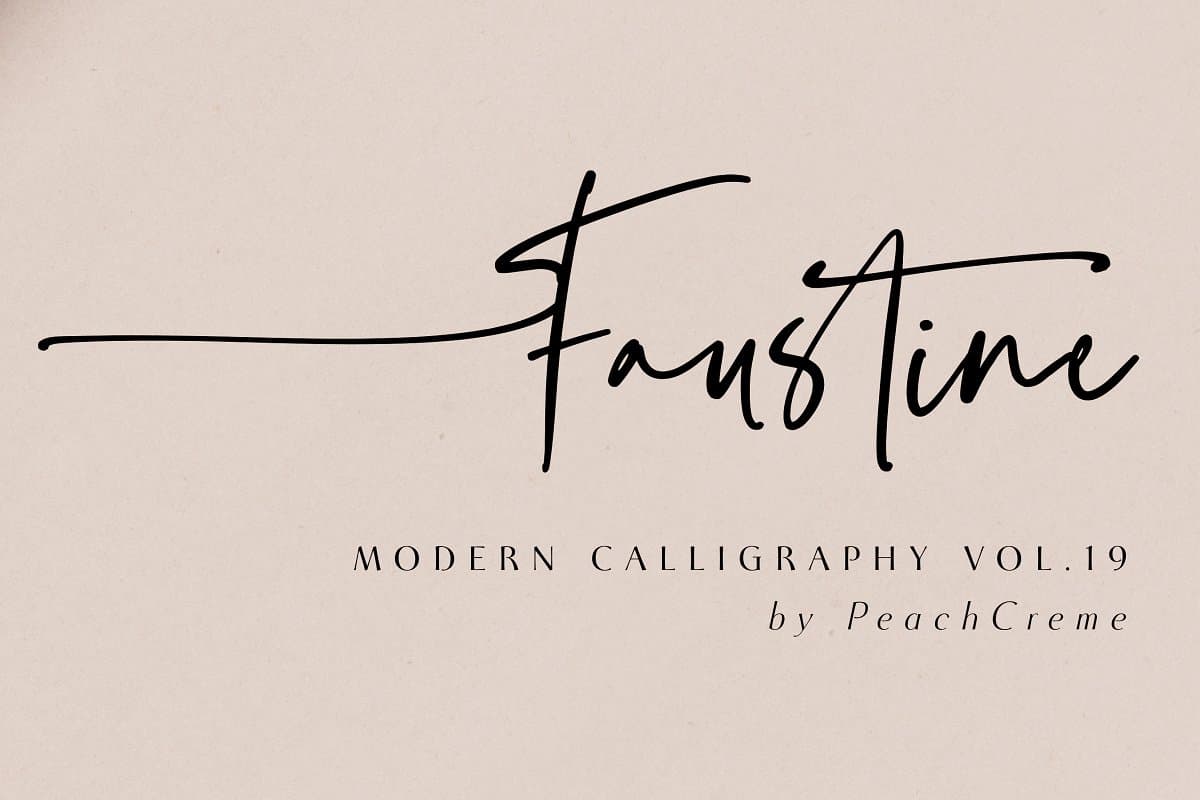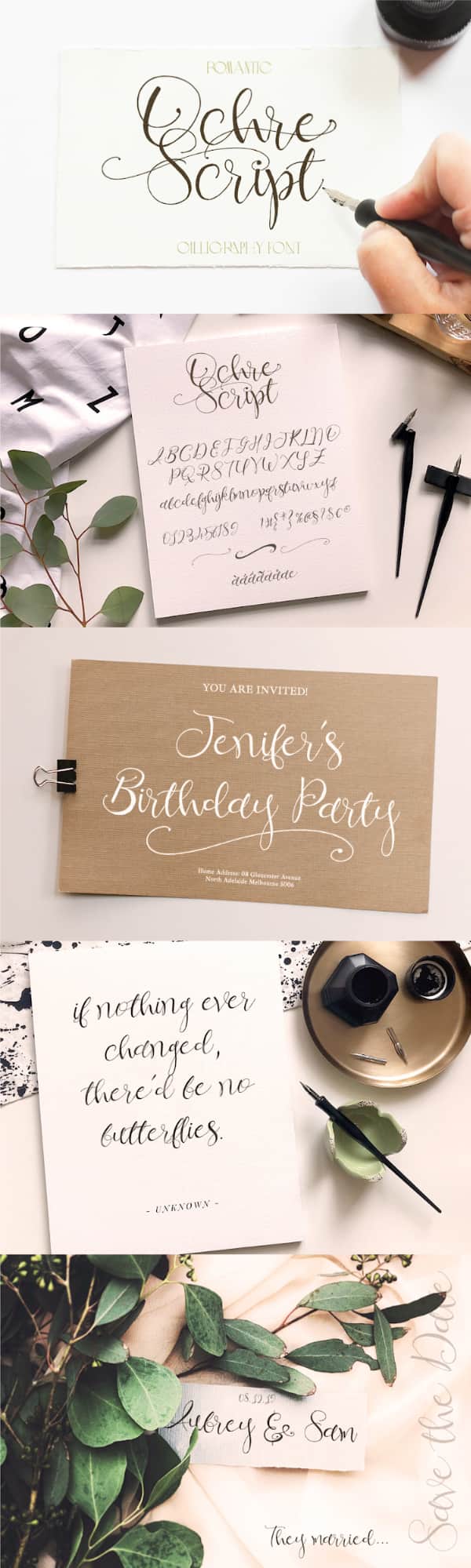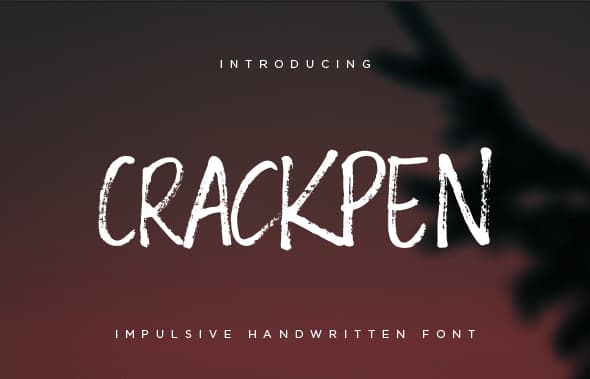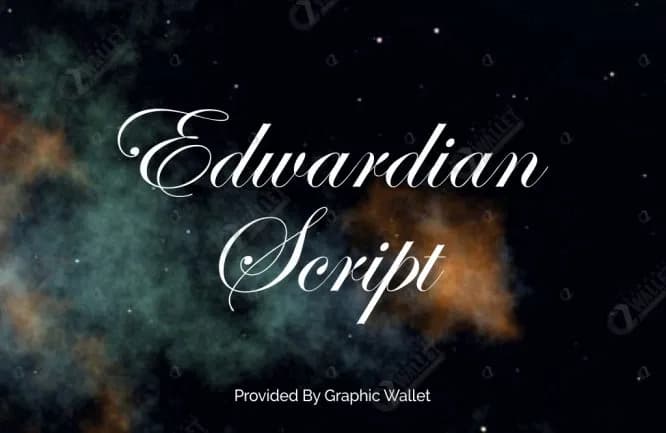
I think we can all agree that the font you choose can make or break a project.
Today, I want to dig into another font related topic—script fonts.
These types of fonts have an exponential impact on the harmony and overall feel of your designs. Therefore, selecting a cursive typeface requires extra attention.
In exchange, a thoughtfully chosen script font will capture attention and lead the eye like no other lettering style. You can also use it to fine-tune your design to convey the mood you want to go for with pinpoint accuracy.
Whether it’s a formal, professional design that needs a personal touch or a fun weekend project where you want your creative flair to shine, a well-selected script font can take your idea from zero to hero.
I’ve sifted through hundreds of the most popular script fonts—an excellent exercise to get inspired for your next design project.
But you might not have the luxury to spend hours searching for the best script font out there, so check out our shortlist of some of our favorite script fonts.
1. Southern Aire
Created by Måns Grebäck, Southern Aire is an authentic retro calligraphic typeface with a 50s nostalgia feel.
Due to its legibility, it’s perfectly functional for medium-length texts such as a quote or even a short description where you want to go for a handwriting effect.
However, these script letters are most impactful when they stand alone, such as when used in a logo. It works fine in print as well as display.
If you’re looking for something that delivers the cursive, natural qualities of a brush-type font but without the rough, unfinished feel, Southern Aire is worth taking a look at.
It also has multilingual support and a large number of special characters. Oh, and it’s free for personal use, so go ahead and give it a try.
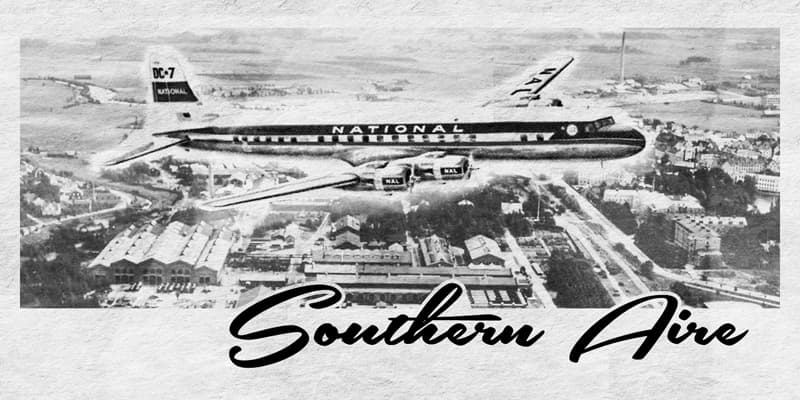
2. Milles
Looking for stylish free script fonts for a signature, a watermark for your photos, or a hip project that’s missing something?
Milles is a versatile free script font courtesy of Fortunes Co. that includes 151 unique ligatures as well as 45 alternates.
With its signature felt-tip texture and fluid lines, it’s such an expressive script writing font you can almost hear the creaking as the marker slides on a piece of paper.
It’s an ideal fit for wedding stationery, ads, packaging, and just about anything that shouts for artistic, confident handwriting to add that dash of authenticity.
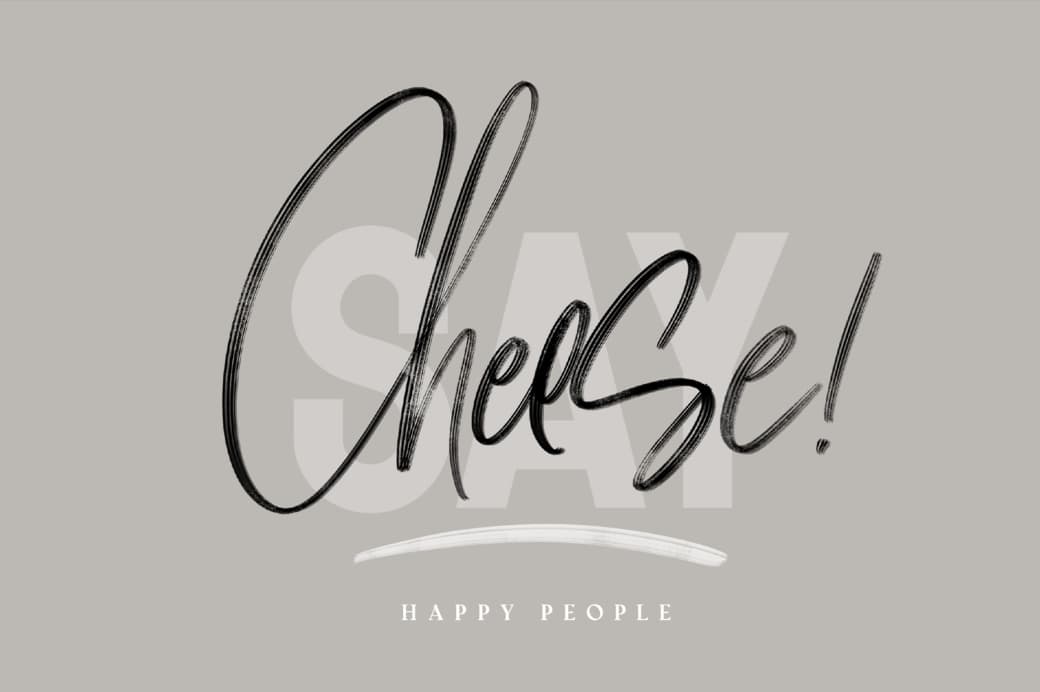
3. French Script
New typefaces hit the marketplaces every single day, but few stand the test of time.
French Script is one of the exceptions, having been with us for more than a century. It’s still running circles around some of the modern designs when it comes to usability, legibility, and, perhaps most importantly, character.
If you want to lend elegance to your work, always have the French Script font handy.
It may be too fancy for some designs, but if the concept allows an extra curve or two, French Script’s fabulous glyphs and swashes will make the message pop. The one-of-a-kind ligature design guarantees a fluid reading experience.
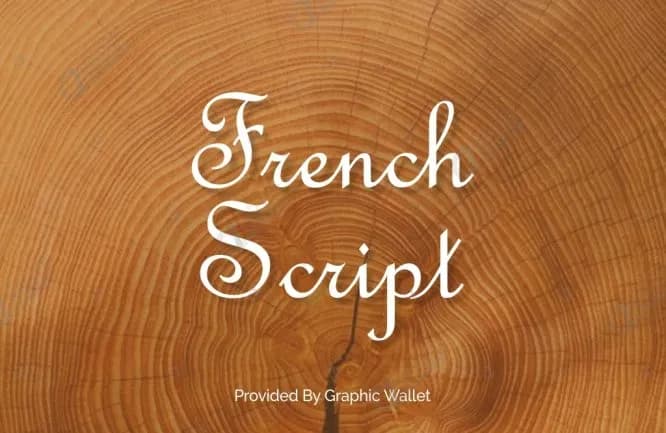
4. Fhoota Mhorgana
Here’s a font with such unique lines you can build an entire brand identity around it.
These beautiful hand stroke letters with 203 characters, 199 glyphs, and several ligatures are also ideal for clothing design, stationery, labels, and so much more.
This modern script font shines brightest when used as a standalone asset, such as a logo.
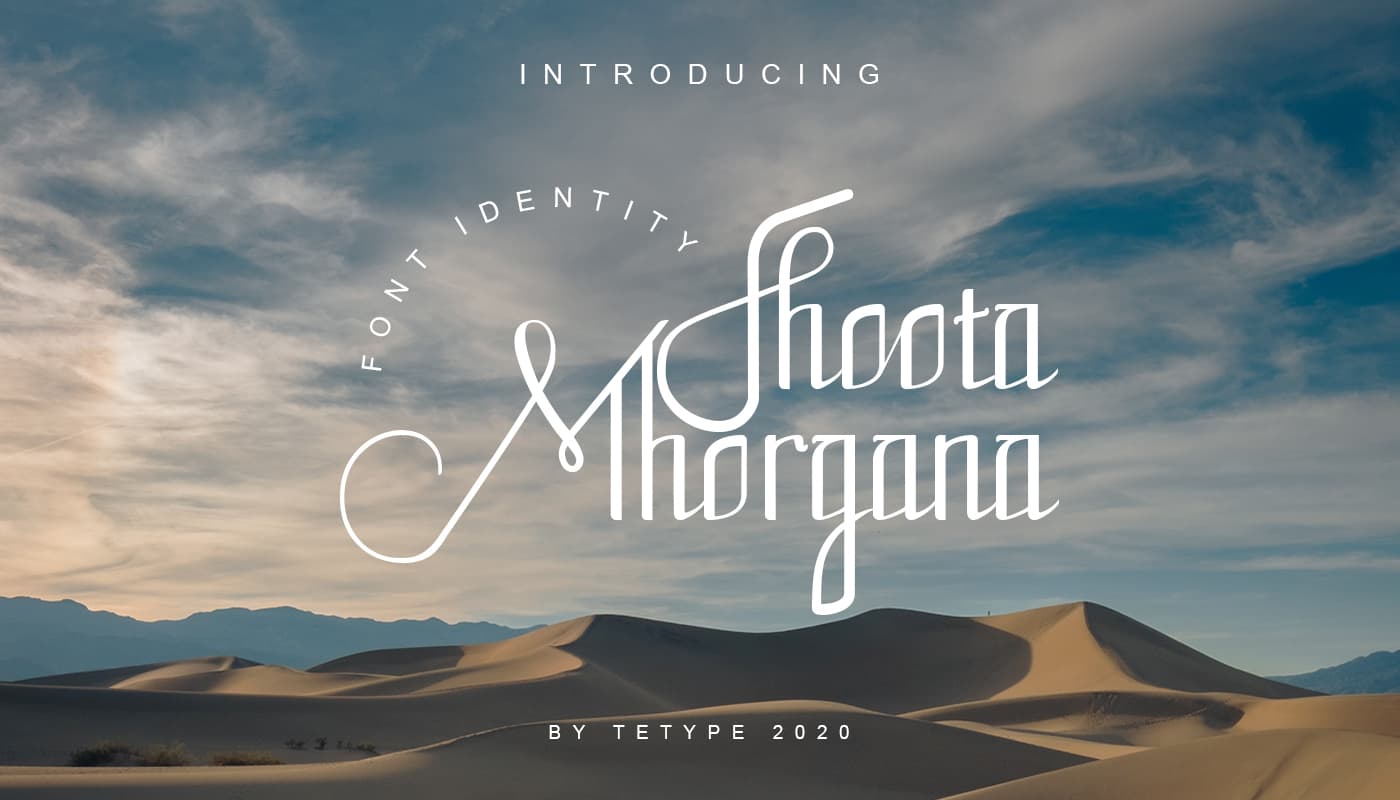
5. Sign Style
For literature-themed projects, plastic arts, or any other project where you want the design to radiate confidence and an artistic spirit, you can’t go wrong with Sign Style.
This font is characterized by contemporary lines and sophisticated accents.
Sign Style is ideal for signatures, logos, quotes, and whenever you want that distinctive fountain pen handwriting feel.
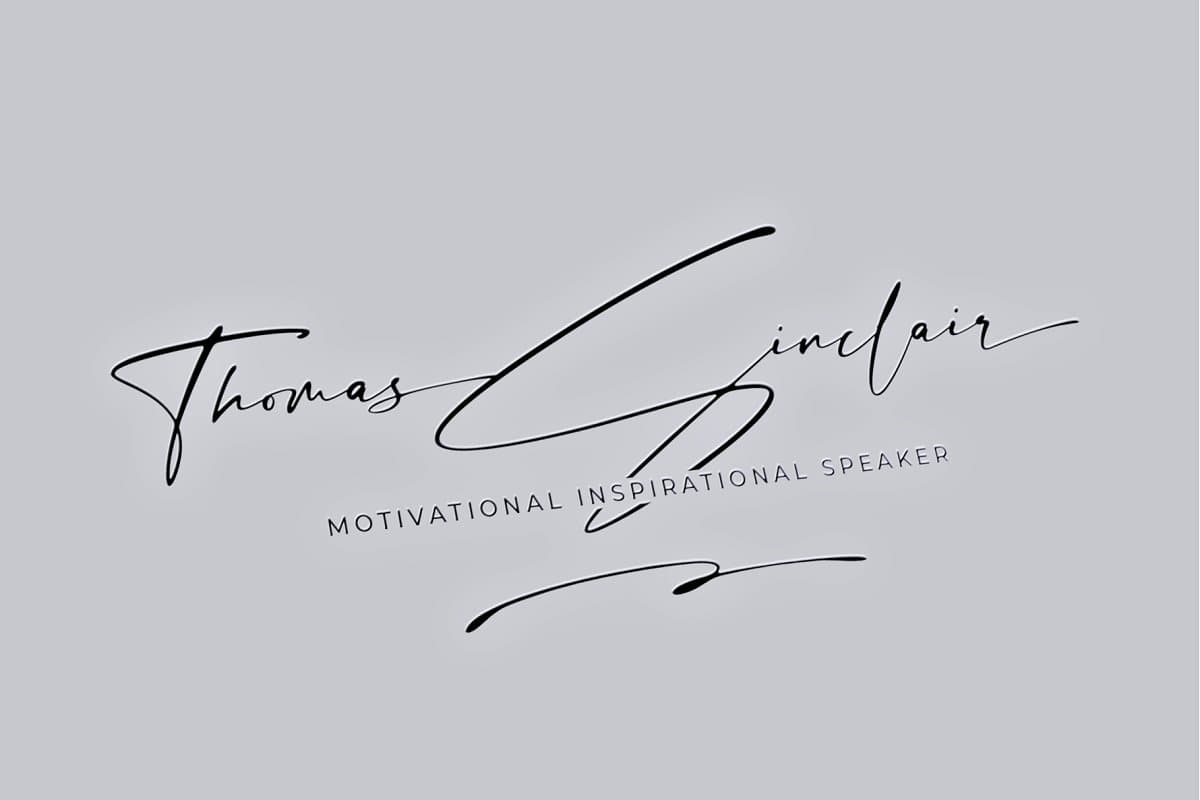
6. Groovy
Papa’s got a brand new font! Groovy is no more and no less than what its name suggests—a funky retro font resembling the popular typography designs of the late 60s.
Bust out your bell-bottoms and those star-shaped shades, and launch your project straight to Boogie Wonderland.
For an extra trippy effect, use the included extrudes under your text and have fun with the 593 glyphs, pretty swashes, and ligatures.
Oh, and get down on it!
7. Faustine
This one is all about the beauty of imperfection.
Full of character, Faustine is not a modern script font, but preferably one that you’d use on the cover of a romantic novel or on a classy perfume or champagne bottle.
Charm is the name of the game, giving your design an attractive look and an approachable, almost flirty character.
The package includes uppercase and lowercase characters, numerals, along with a complete range of punctuation and ligatures.
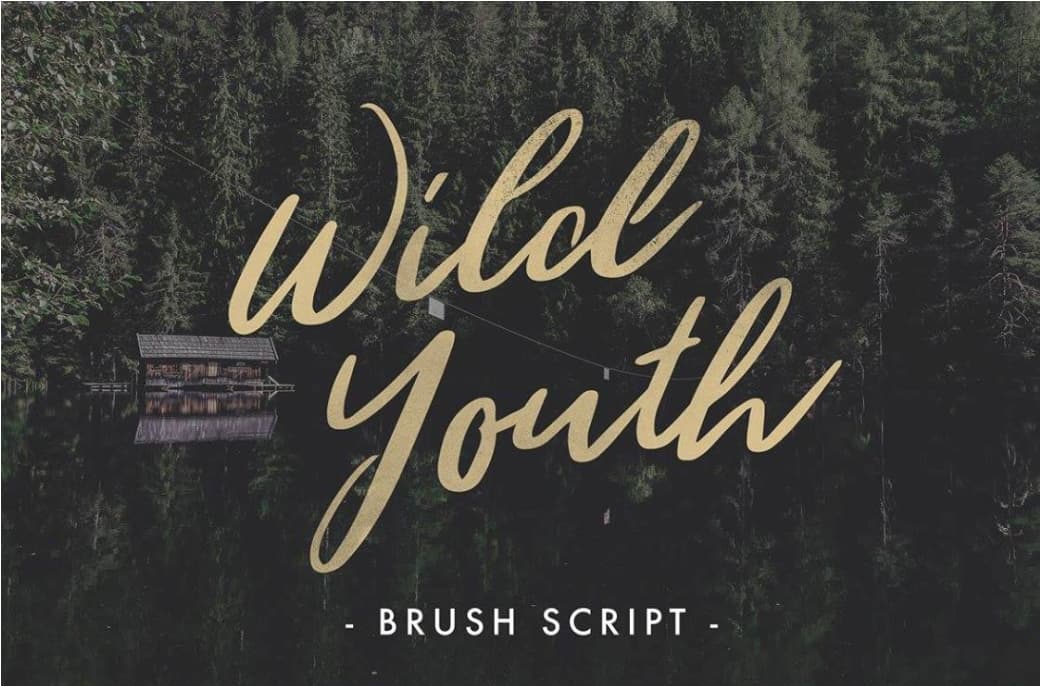
Final Thoughts
A font can say a lot about a creative project, but you definitely need to choose it wisely, especially when deciding on a script font.
If you pay attention to the details and dedicate enough time to select the perfect typeface for your design, you can use this power to your advantage. I hope you will find our popular script fonts list useful.